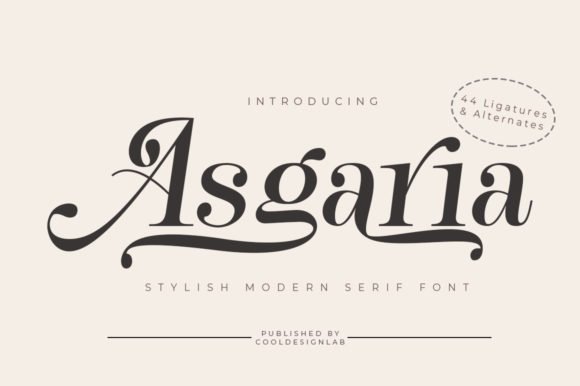
Have you ever stared at a blank page, trying to find the perfect font to bring your design to life? The frustration is real, but what if you could find a font that effortlessly elevates your work and makes you feel like a pro? That’s where the Asgaria Font comes in – a stylish and clean serif font that’s sure to be your new go-to.
Whether you’re a graphic designer, writer, or simply someone who loves to create, the Asgaria Font is a valuable addition to your toolkit. With its PUA encoding, you’ll have access to all the glyphs and swashes you need to add a personal touch to your projects. Trust us, once you start using the Asgaria Font, you’ll wonder how you ever managed without it.
- Unique Characteristics: Asgaria Font features a unique blend of modern and traditional design elements, with intricate details and ornate flourishes that set it apart from other fonts.
Asgaria Font Review
As a designer, I was excited to dive into the Asgaria font and see what it has to offer. ✨ First impressions are that the font has a unique and elegant feel to it, perfect for a wide range of projects, from branding to publishing.
- ✨ Elegant and refined design aesthetic
- ✨ Wide range of weights and styles to choose from
- ✨ Suitable for various design projects, from print to digital
One of the standout features of Asgaria is its ability to convey sophistication and elegance. The font’s refined design makes it perfect for projects that require a touch of class, such as high-end branding, luxury packaging, or even academic publications.
- ⚠️ Limited support for certain languages
- ⚠️ May not be suitable for projects requiring bold, playful fonts
- ⚠️ Some users may find the font too refined or elegant for certain projects
Overall, I’d say that Asgaria is a solid choice for designers looking for a refined and elegant font. While it may not be suitable for every project, it’s a great addition to any design library.
Tips for Getting the Most Out of Asgaria Font
Here are some tips for getting the most out of the Asgaria font:
- Use it for titles and headings to add a touch of elegance.
- Pair it with other fonts to create a unique and visually appealing combination.
- Experiment with different font sizes and colors to create emphasis.
The Asgaria font is commonly used for:
- Branding